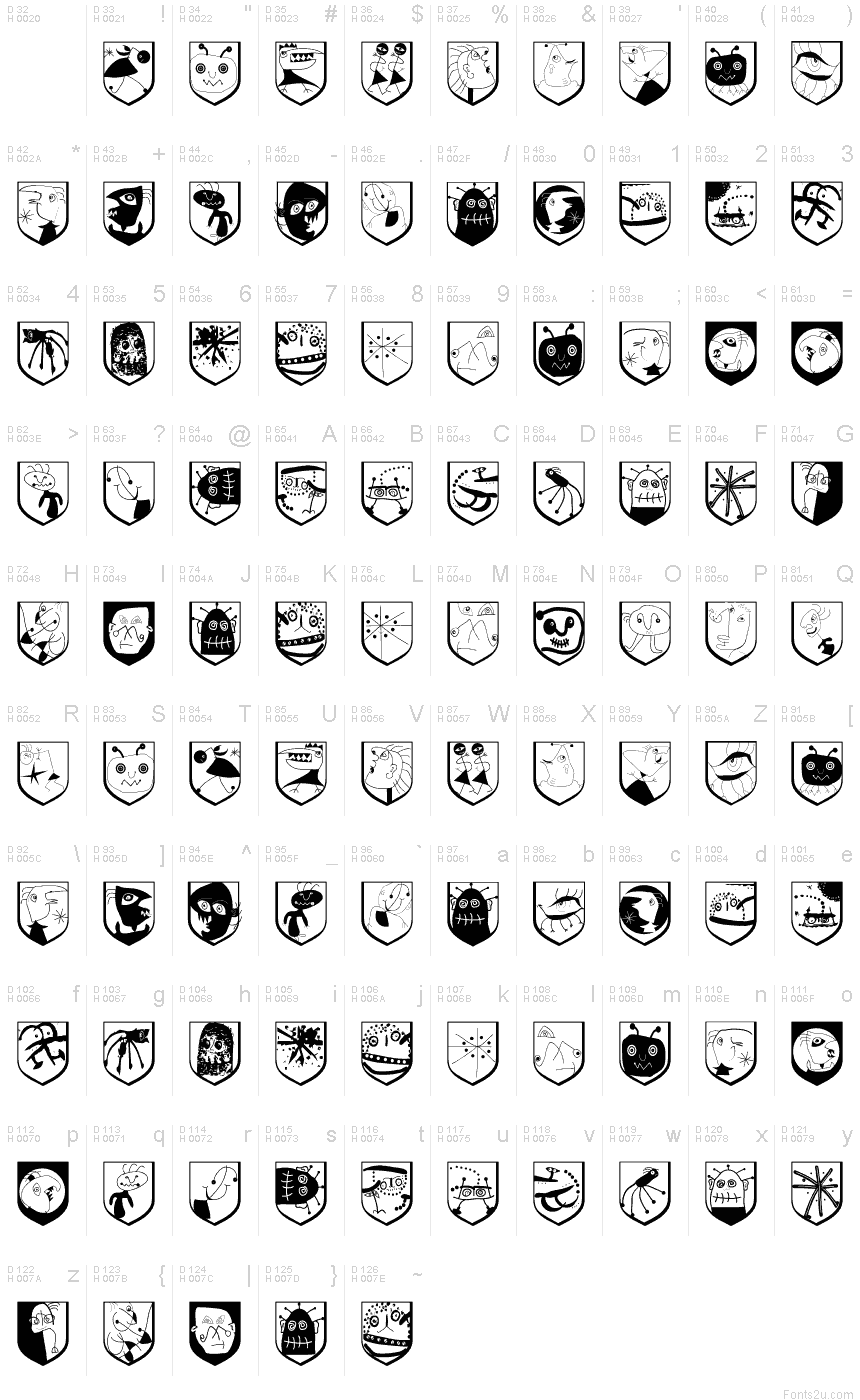
TodayArms by mklein is a free heraldic dingbat font built from eccentric shield emblems. Each badge contains stark hand-drawn imagery, including spindly figures, mask-like faces, celestial marks, and abstract devices. Uneven lines and dense black shapes give the collection the look of strange folk crests.
Surreal heraldry makes these symbols especially useful for fantasy games, theatrical posters, and album artwork. They can also turn merchandise graphics and event invitations into miniature coats of arms.